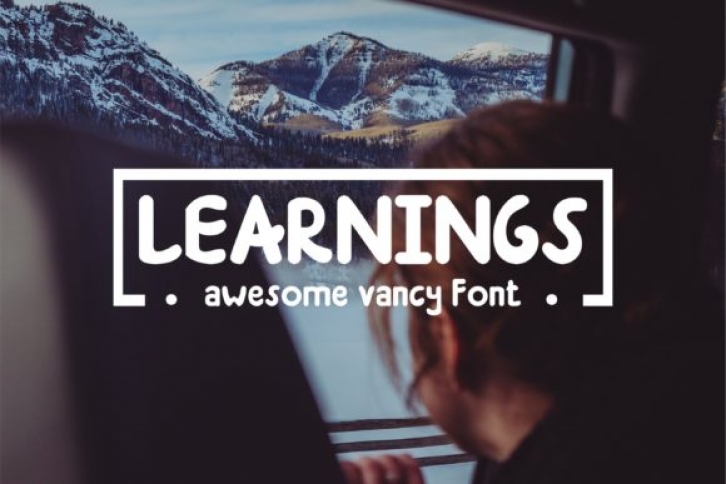
The Learnings has a stylish writing with a distinctive style. This cartoon font offers you a personal touch to your latest art projects with an elegant, classy and modern look which fits children themed designs perfectly.